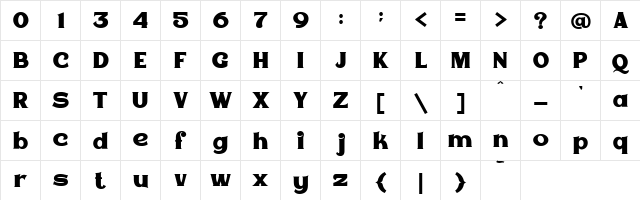
Epicgant Regular
Design Context for Epicgant Typeface
Epicgant takes a measured approach to typography — its balanced proportions and neutral character make it a reliable workhorse for both digital and print work.